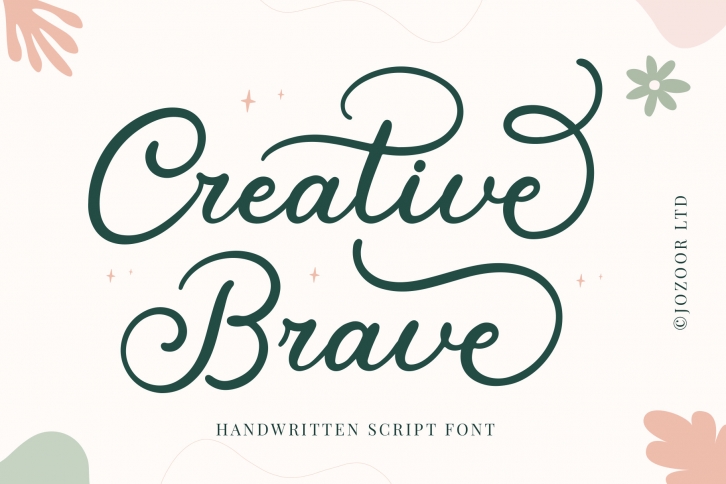
Creative Brave is a stylish, delicate, vintage, and flowing handwritten script font. It has beautiful and well-balanced characters and as a result, it matches a wide pool of designs. This font is PUA encoded which means you can access all of the glyphs and swashes with ease!